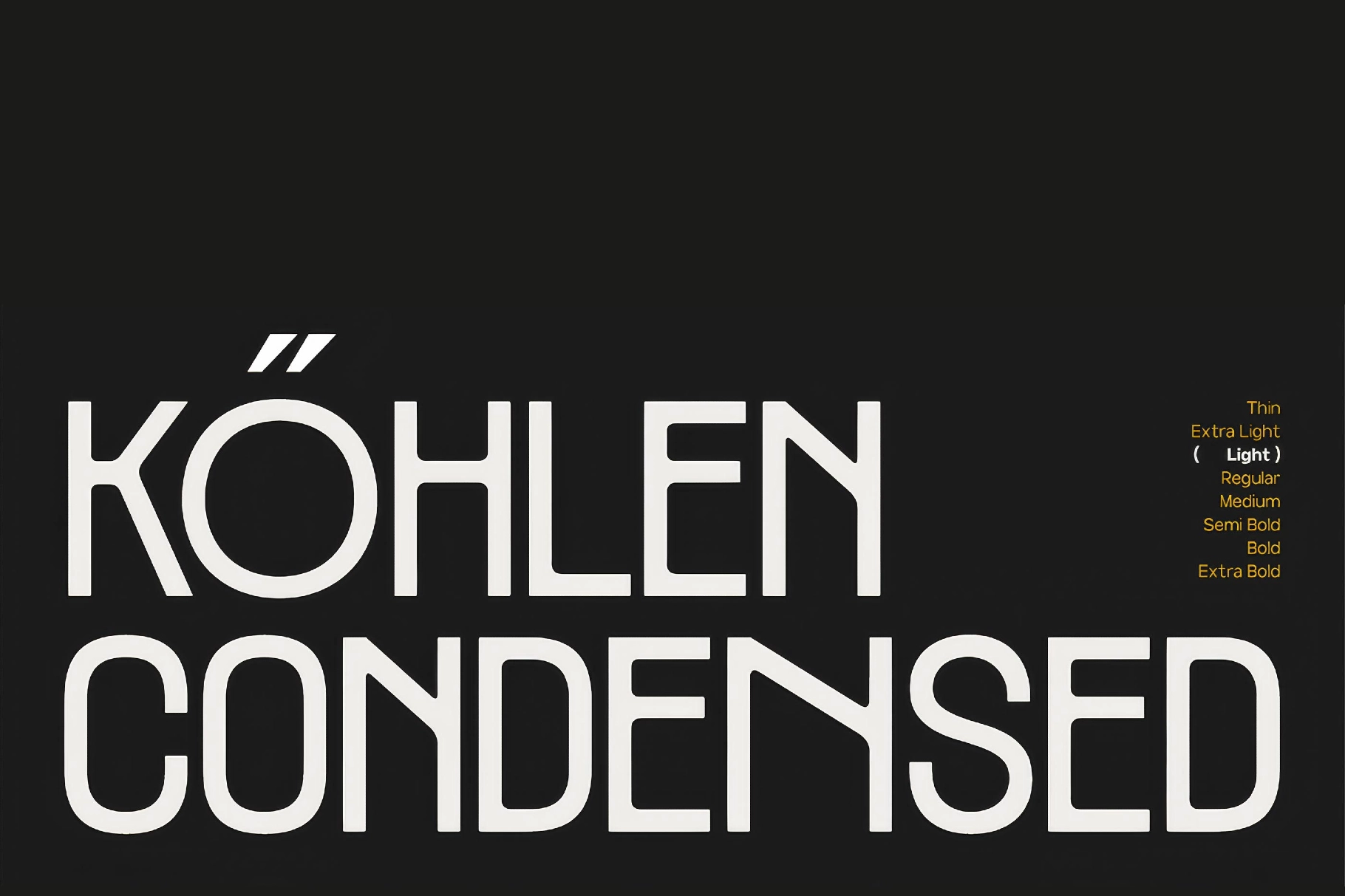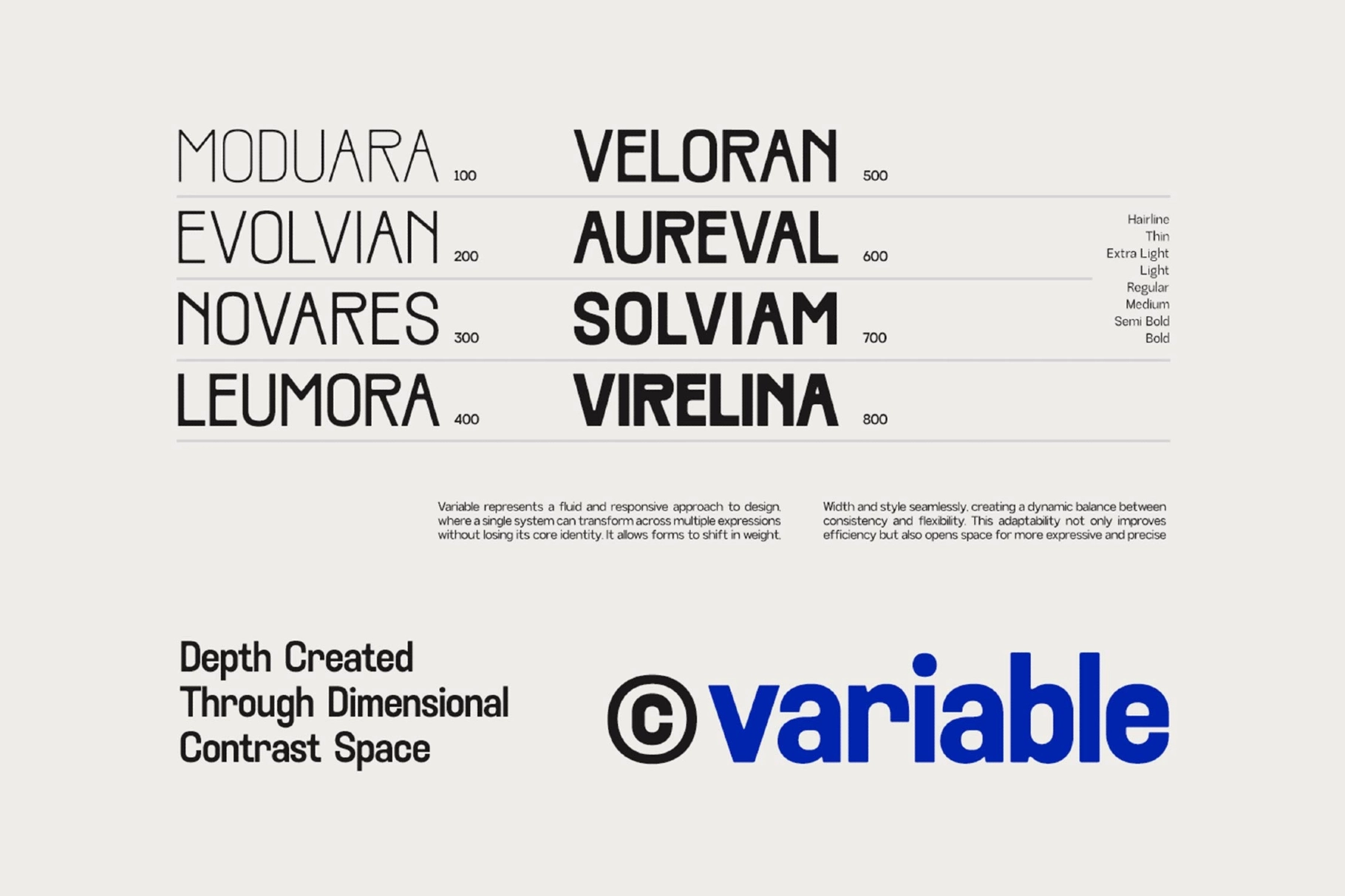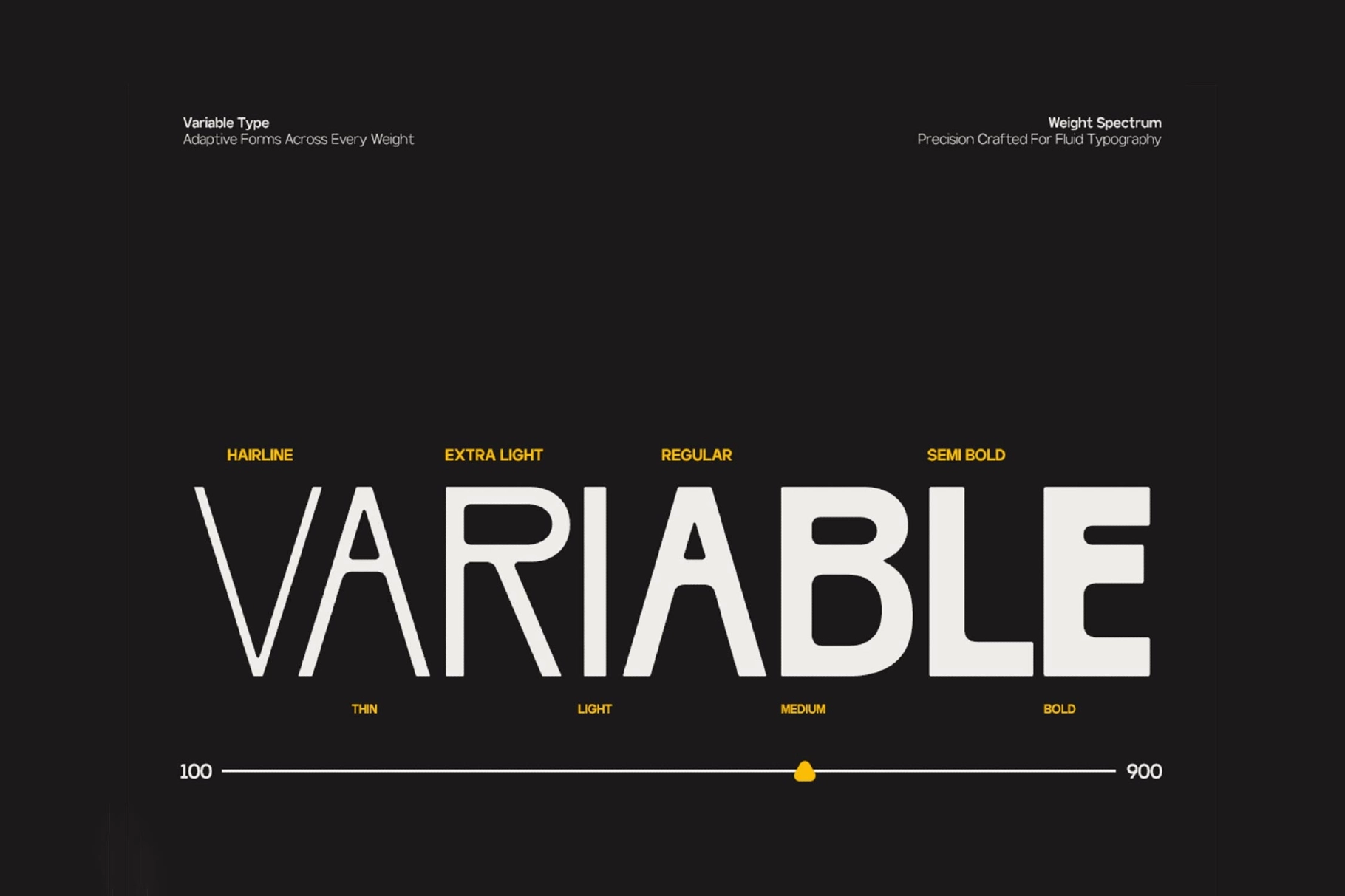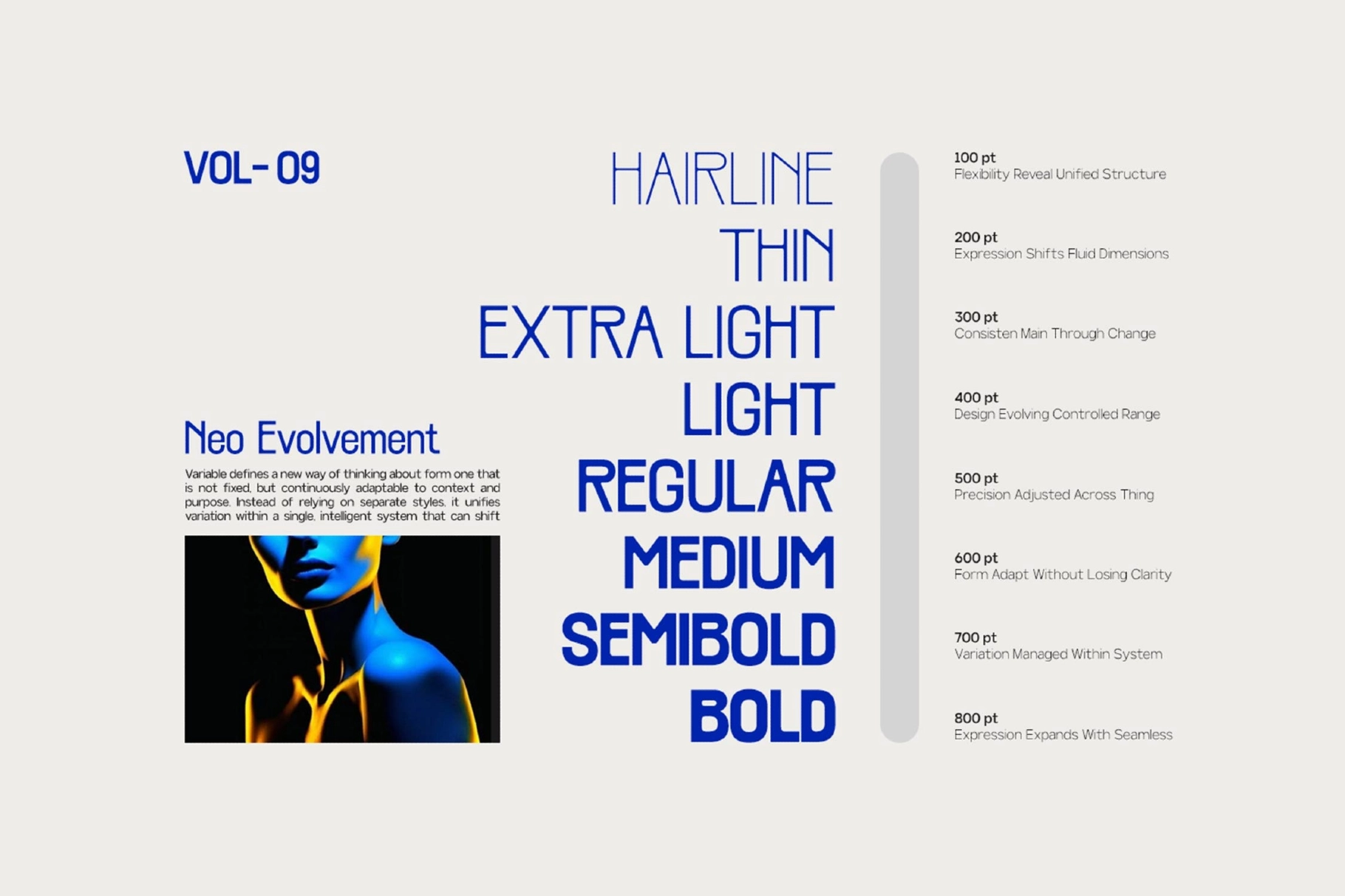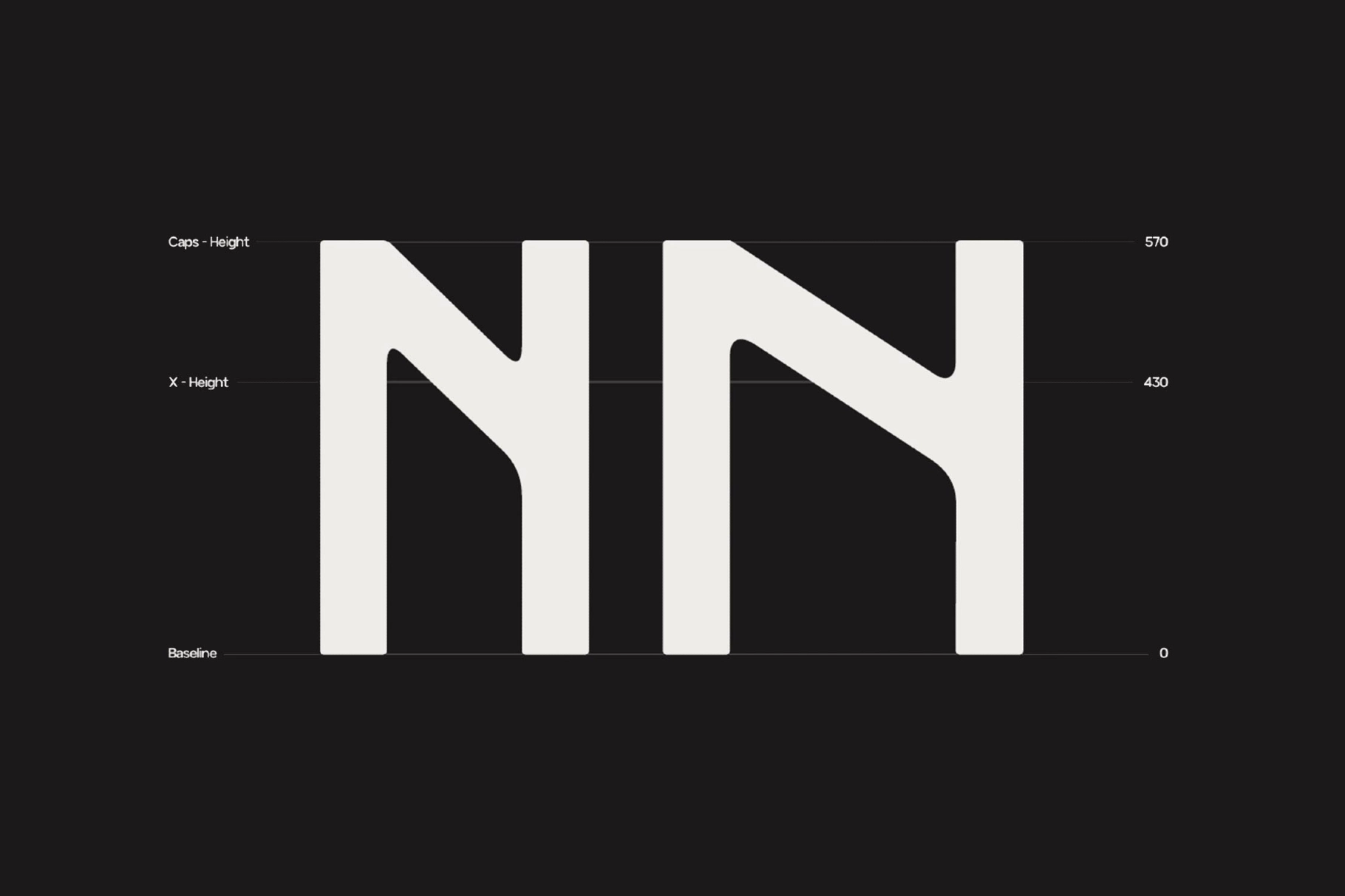
GC Kohlen - Tall Condensed Display Font
GC Kohlen keeps a tall, narrow cap-height and clean geometric skeleton, with uniform stroke weight instead of dramatic contrast — a condensed display built to hold visual weight in tight spaces without losing legibility. The structure stays consistent across eight weights, from a hairline-thin cut up to a solid Bold, so the same tall proportions carry through the whole range.
Standard and discretionary ligatures smooth out select letter pairs, and a stylistic alternate set swaps in a different letterform for headlines that need a bit more character. Fractions, ordinals, and superscript figures round out the technical set, while the extended Latin character set keeps text solid across an extended multilingual range. Use it for branding systems, editorial headlines, posters, advertising campaigns, packaging, and premium visual identities.
• 8 weights, Hairline to Bold;
• uppercase & lowercase;
• numerals, punctuation & symbols;
• ligatures & stylistic alternate letterforms;
• fractions, ordinals & superscript figures;
• kerning support;
• multilingual support;